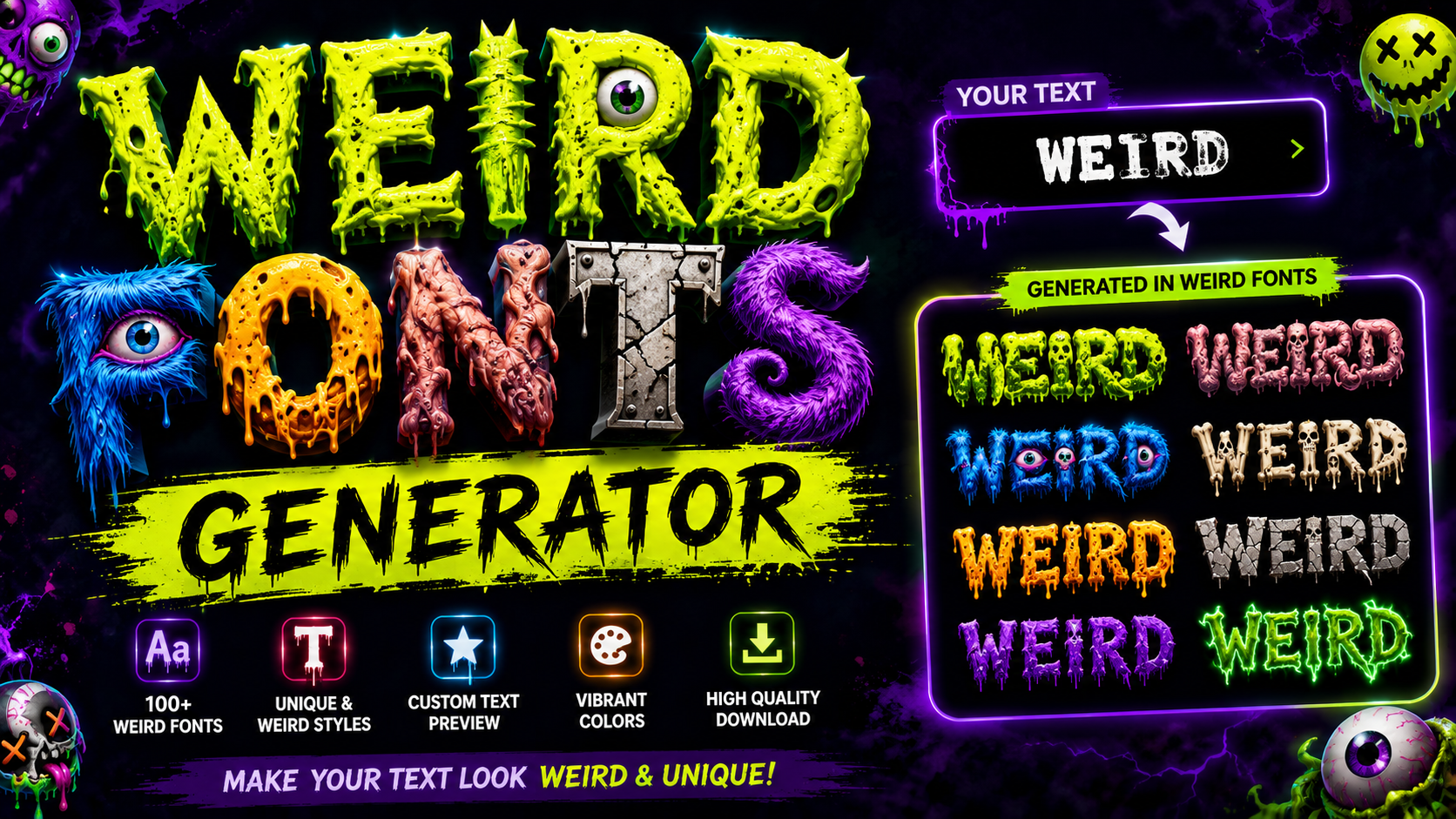
As a seasoned developer, I notice digital expression often defies expectations when standard layouts feel restrictive. Implementing experimental glyphs or Zalgo Text yields an unsettling, cursed look that redefines traditional typography through unconventional styling paradigms.
Manipulating these sub-elements bypasses basic communication rules, injecting raw individuality into plain interfaces. My research proves that deploying glitchy text with unpredictable patterns elevates emotional engagement, fracturing monotonous online spaces with intense, decentralized aesthetic friction.
What Are Weird Fonts?
Digital typography subversion relies on special Unicode to bypass standard design constraints. These visually unexpected assets utilize combining diacritical marks, forcing a base character to bleed vertically across layouts. This creates a mysterious interface notation.
As a seasoned practitioner, I witness how glitching unusual patterns transform normal text into beautifully corrupted digital art. By stacking multiple diacritic signs, this weird font phenomenon breaks constraints to manifest true decentralized creative expression.
Understanding Weird Fonts in Simple Terms
Observing online behavior reveals why traditional design patterns lose impact. Viewers overlook regular formatting completely. However, applying quirky Unicode characters yields unexpected shapes, modifying plain sentences into text styles that instantly capture reader focus effectively.
From my development expertise, this phenomenon relies on unpredictable alterations. When phrases defies typical rendering expectations, it generates surreal visuals. These customized letterforms reshape boring commentary into an engaging experience within any online space smoothly.
Types of Weird Fonts / Font Styles
Embracing eccentricity redefines digital aesthetics completely. My practice with bizarre fonts proves that utilizing unusual patterns breaks traditional engagement models. These specialized text choices inject raw quirkiness into communication, defying standard corporate design world norms.
Deploying experimental design hidden macro structures generates profound psychological impacts. Through intentional distortions, creators navigate obscure visual landscapes where standard layout aesthetics dissolve, forcing deep cognitive processing via intricate, hidden Unicode characters that surprise audiences.
Step 2 — Choose a Font Style
Selecting Experimental fonts demands an analytical perspective on digital design. Practitioners deliberately manipulate a bizarre combination of complex options to transform standard text. Prioritizing uniqueness ensures your chosen styles instantly yield a highly quirky output.
Evaluating Distorted fonts reveals how atypical letters completely challenge standard cognitive recognition. This strange, crazy curation process bypasses predictable layouts. Embracing an unusual font architecture directly converts ordinary inputs into a deeply Cryptic visual experience.
Step 3 — Copy and Paste Font
Instant deployment shifts your digital strategy entirely. Once the system has converted standard inputs, capturing that specific weird font style moves directly to your clipboard. This frictionless execution ensures immediate aesthetic alterations across various layouts.
Simply paste the generated characters to inject a distinctive flair into modern status updates. This finalizes the workflow, instantly transforming ordinary comments into striking focal points without relying on complex software design tools or plugins.
Why Are Weird Fonts So Popular?
Digital algorithms feed on sameness, forcing creators to rebel. Embracing pure unconventionality on modern platforms subverts expected text norms, which instantly attracts users seeking some raw, authentic human friction within clinical, automated, heavily optimized ecosystems.